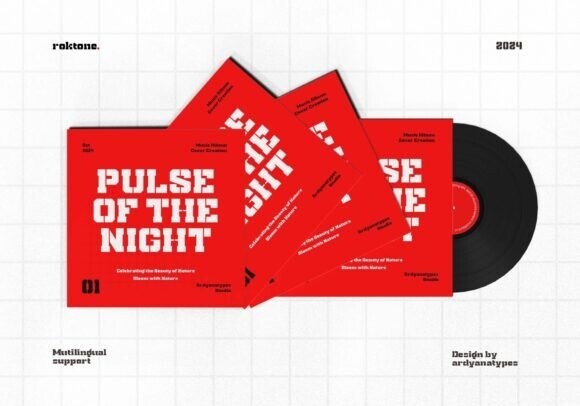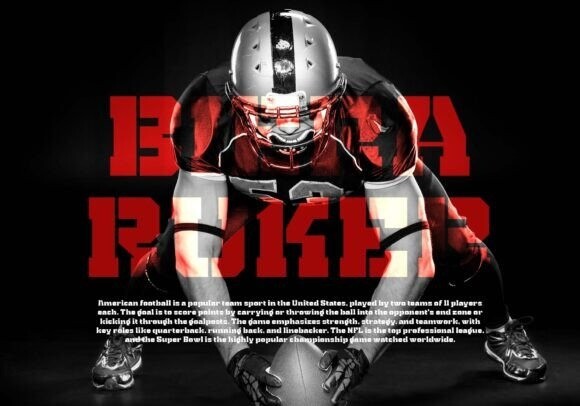
Roktone Font
Roktone Font is a block typeface meticulously crafted and inspired by various modern styles to deliver an optimal combination of aesthetics and functionality. With its bold and strong character, Roktone remains flexible enough to be applied across different design styles. Featuring advanced OpenType capabilities, Roktone offers a variety of customizable characters, allowing designers to fully express their creativity.